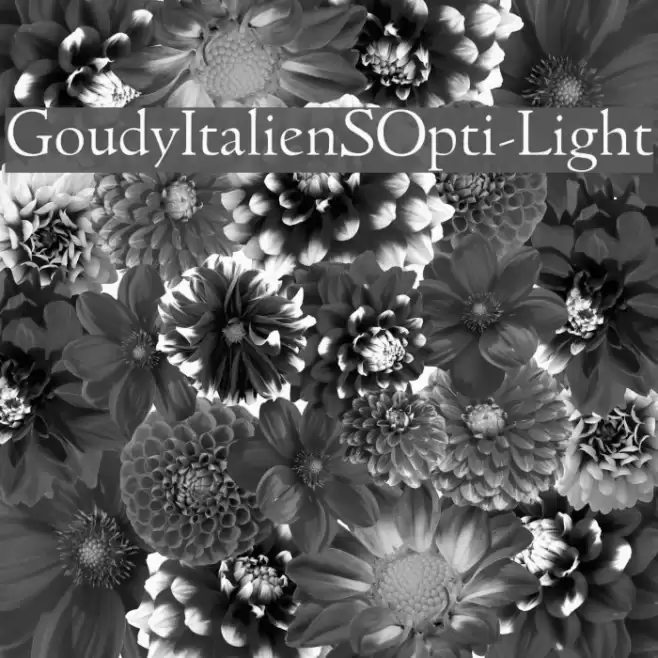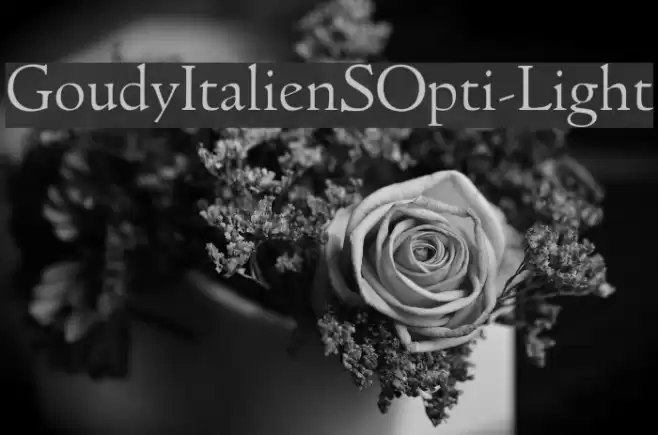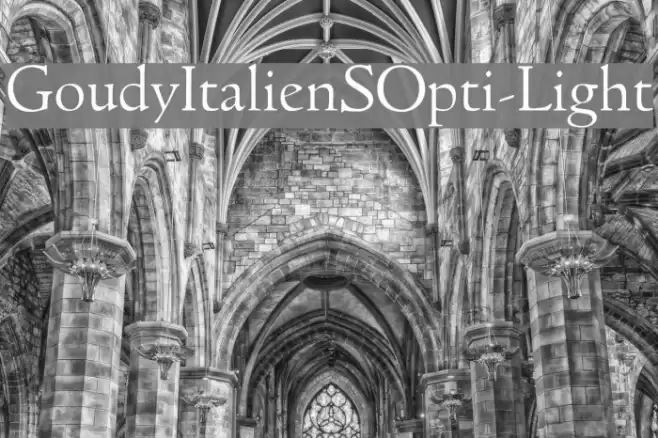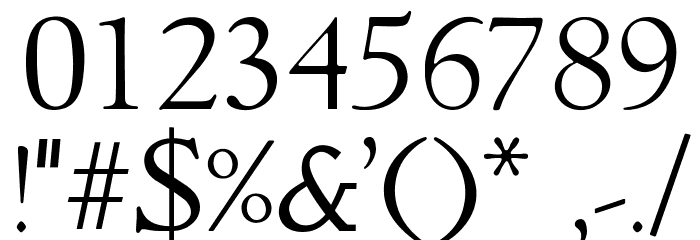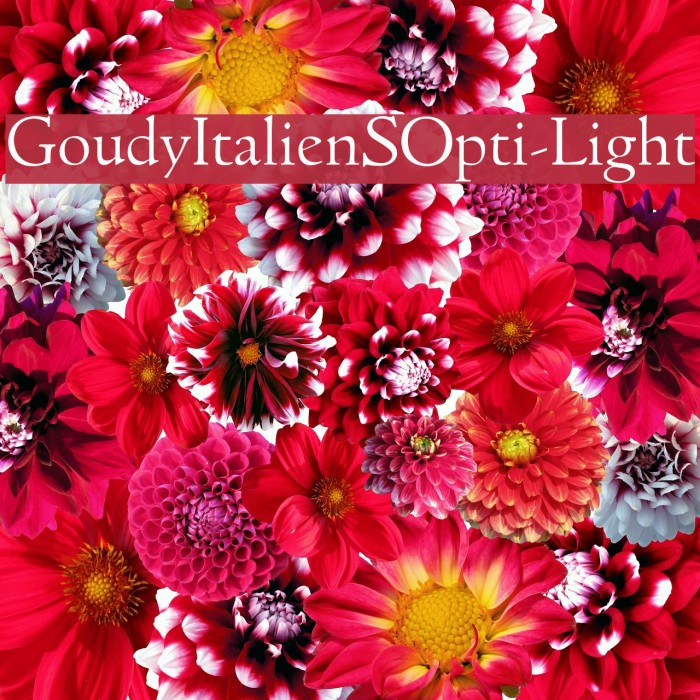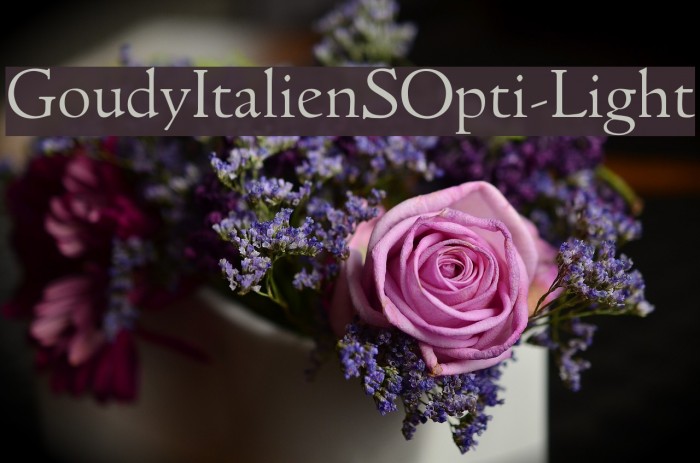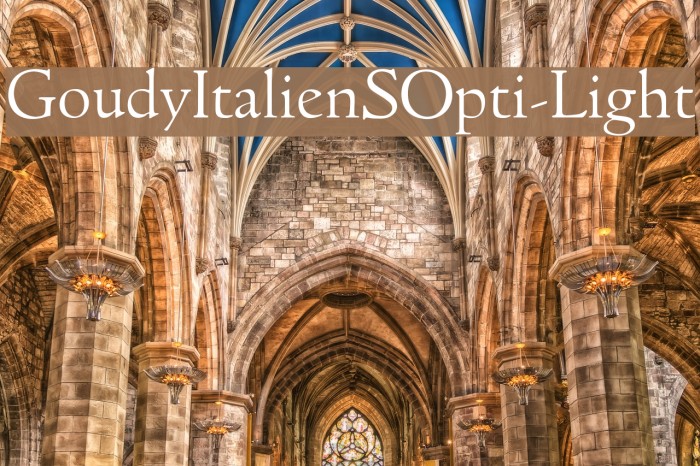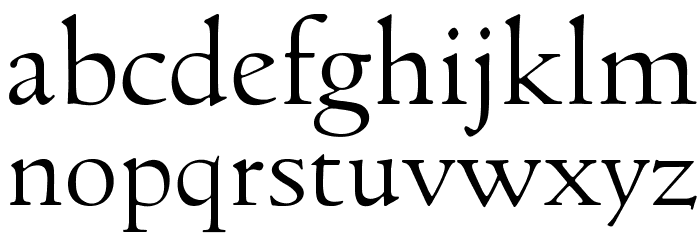
GoudyItalienSOpti-Light Font
GoudyItalienSOpti-Light Description
This font exhibits a classic serif style with elegant curves and a refined appearance. The uppercase letters are stately and well-proportioned, while the lowercase letters maintain a graceful flow. The numerals are distinct and clear, complementing the overall aesthetic. Special characters are thoughtfully designed, adding to the font's versatility. The strokes are moderately thick, providing a balanced contrast that enhances readability without sacrificing style. This font is suitable for projects that require a touch of sophistication and timeless appeal.
A classic serif font with elegant curves and balanced contrast from Uncategorized fonts.
- Proposed Projects: Ideal for book covers, formal invitations, branding, and editorial design.
- Overall Style: Classic